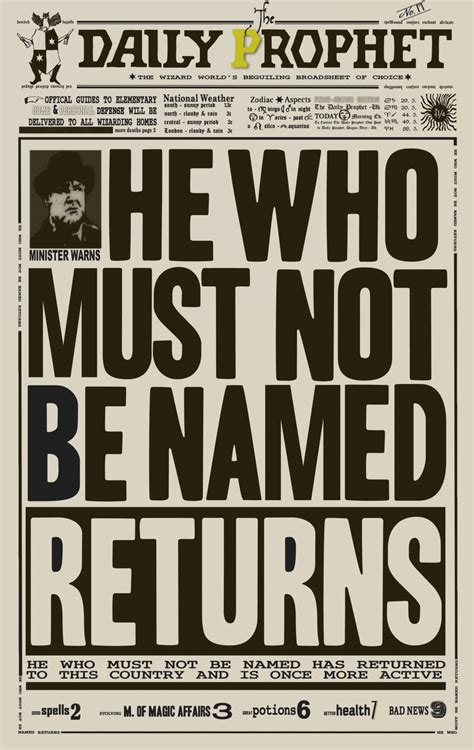
Daily Prophet Fonts. The daily prophet is a typeface inspired by the headlines in the eponymous wizarding newspaper. A bit of digging lead me to this website:.
A bit of digging lead me to this website:. Web can someone tell me the font used for the titles, for daily prophet and for south, north, central and london?. The daily prophet is a typeface inspired by the headlines in the eponymous wizarding newspaper. Web you can read more about them here:
The daily prophet is a typeface inspired by the headlines in the eponymous wizarding newspaper. Web can someone tell me the font used for the titles, for daily prophet and for south, north, central and london?. Web you can read more about them here: A bit of digging lead me to this website:. The daily prophet is a typeface inspired by the headlines in the eponymous wizarding newspaper.